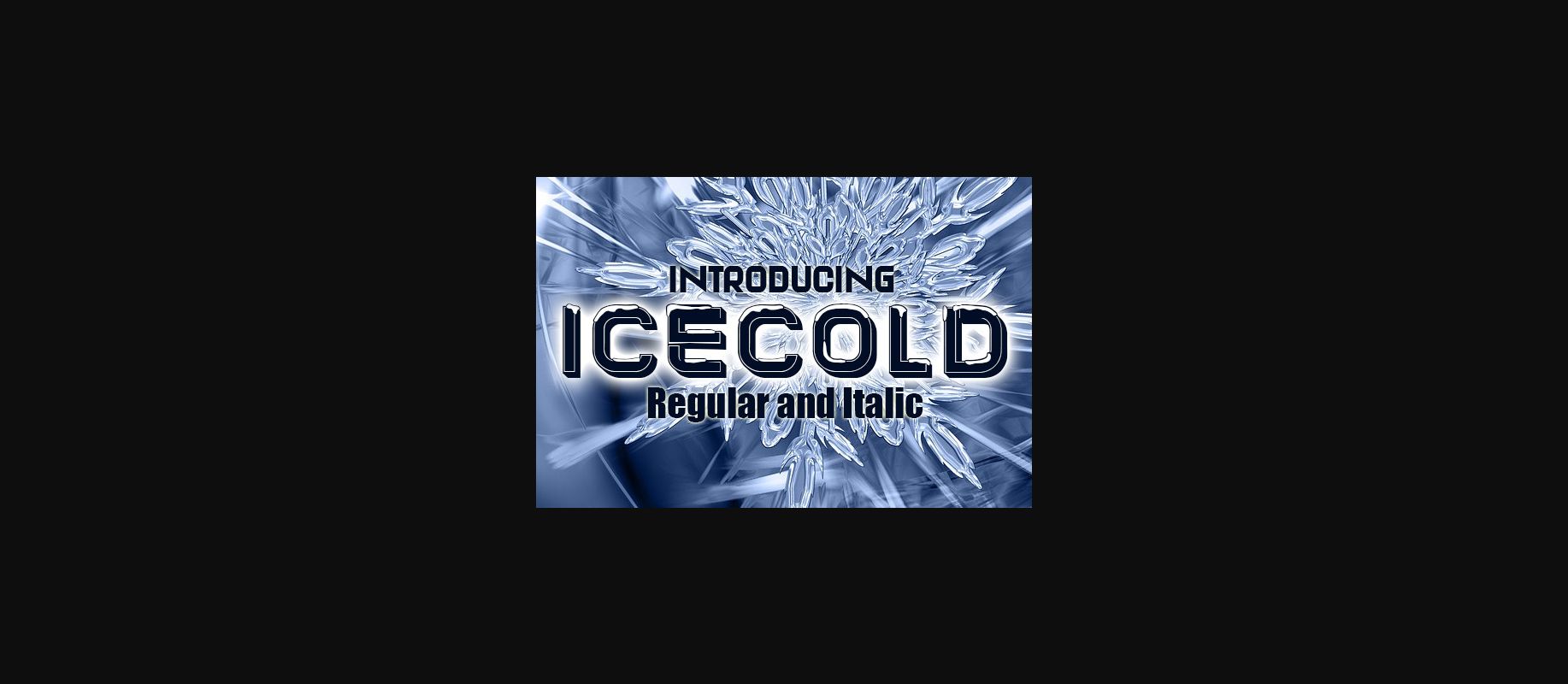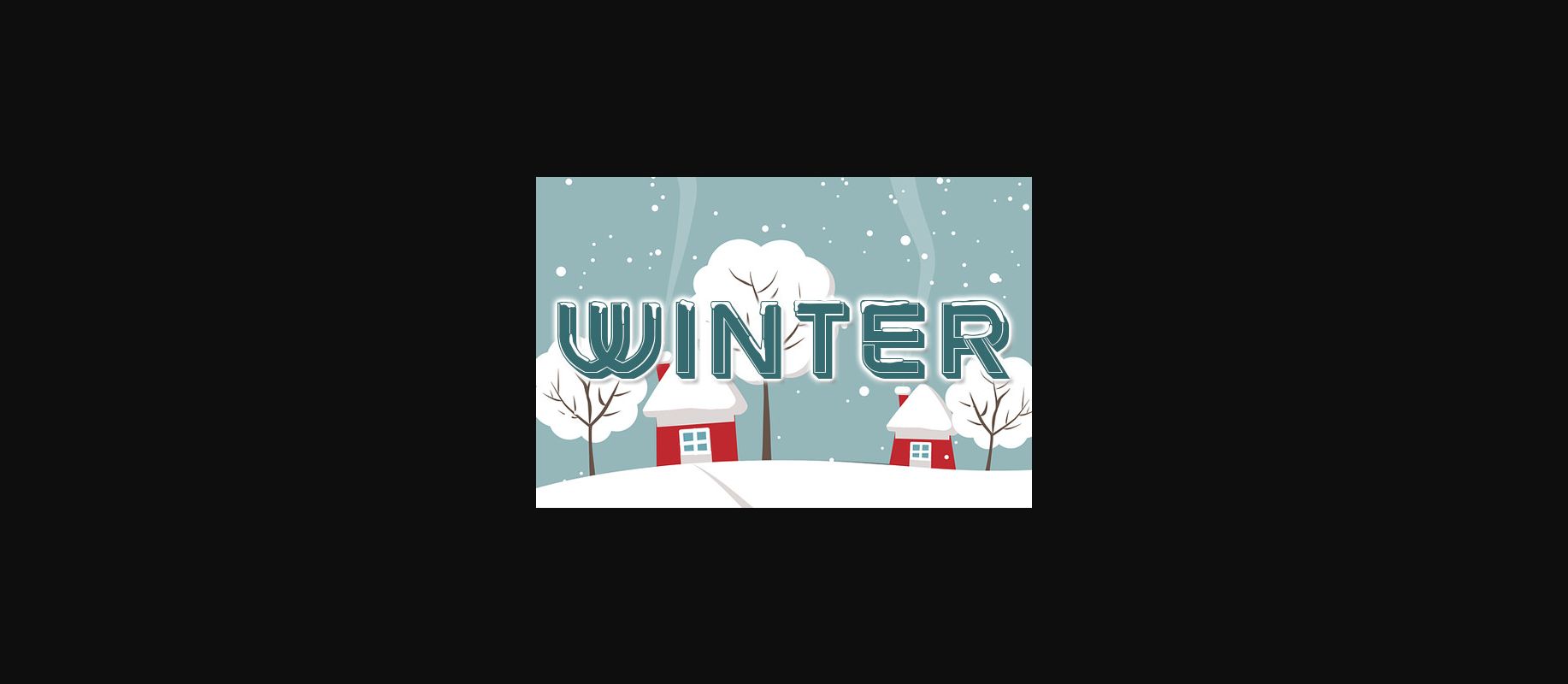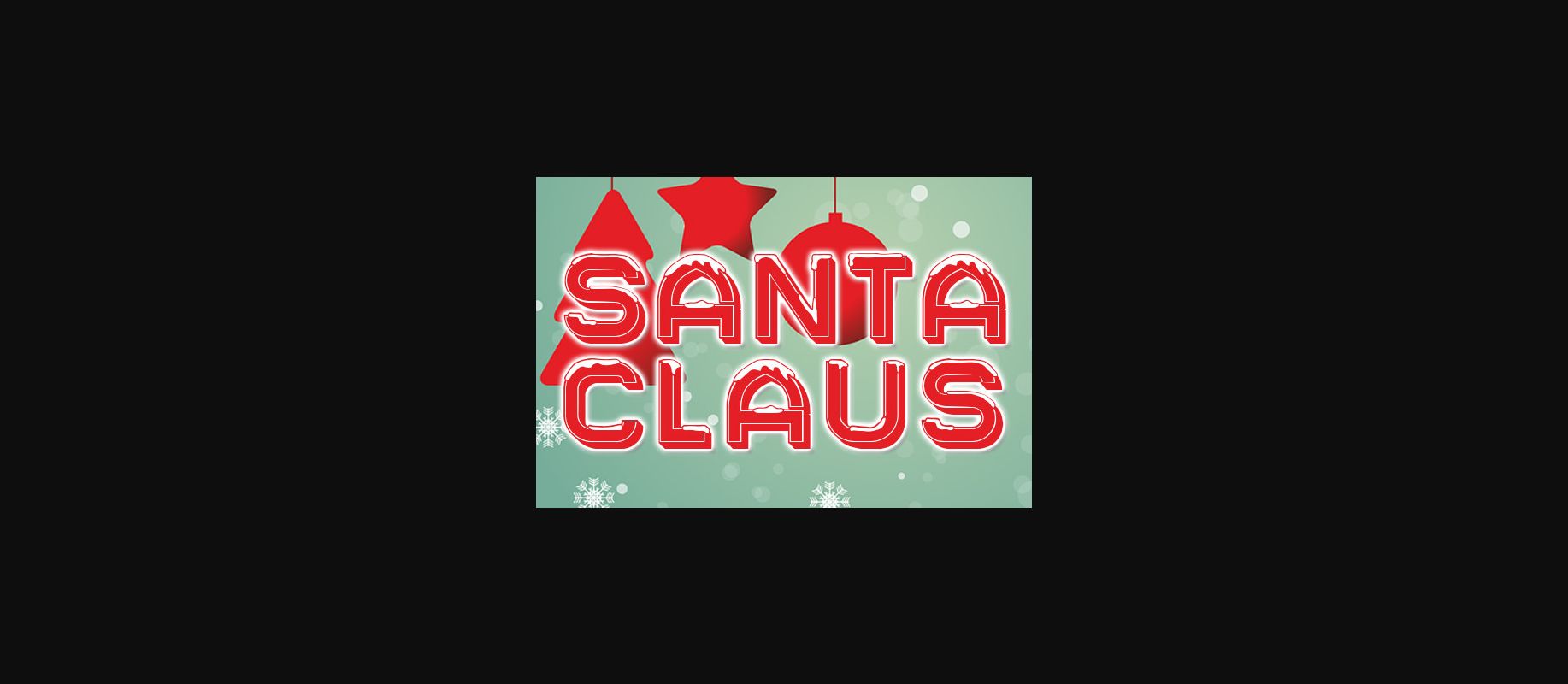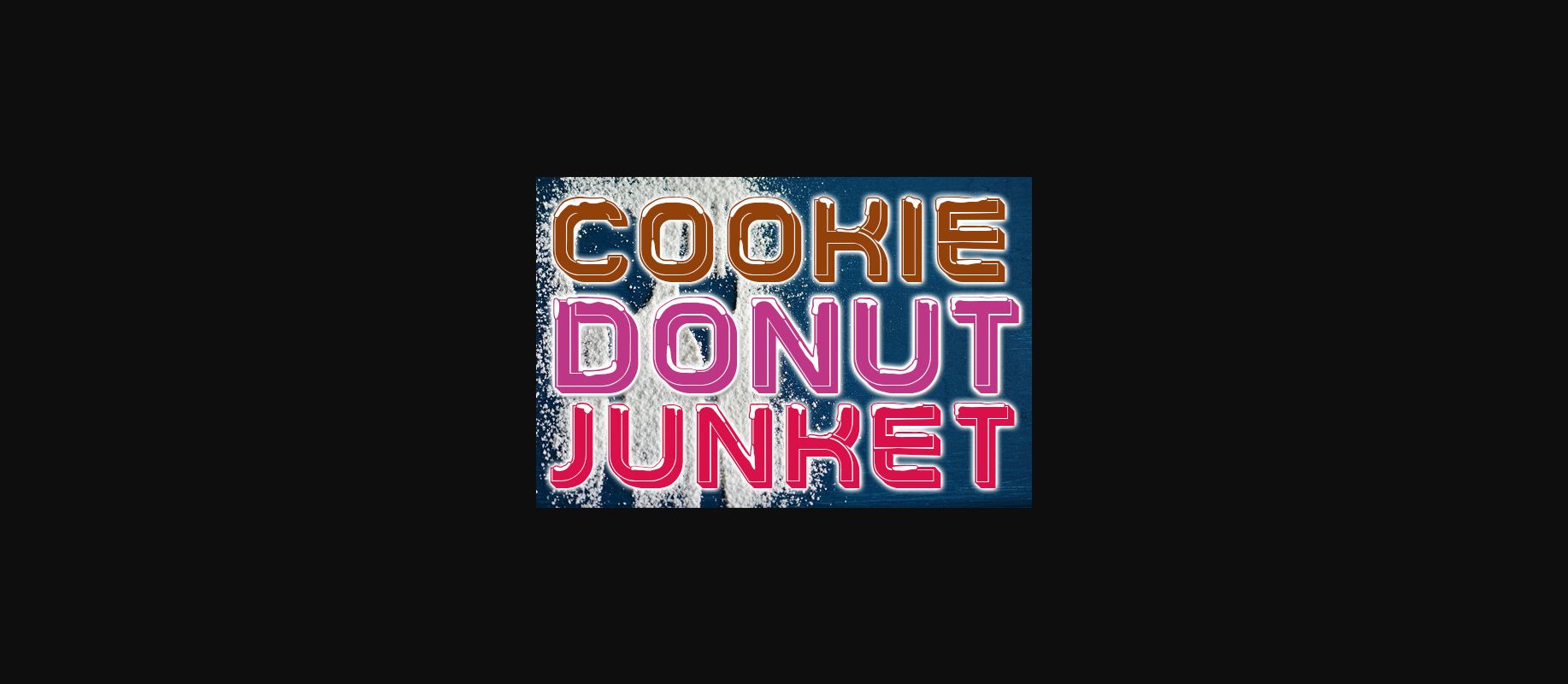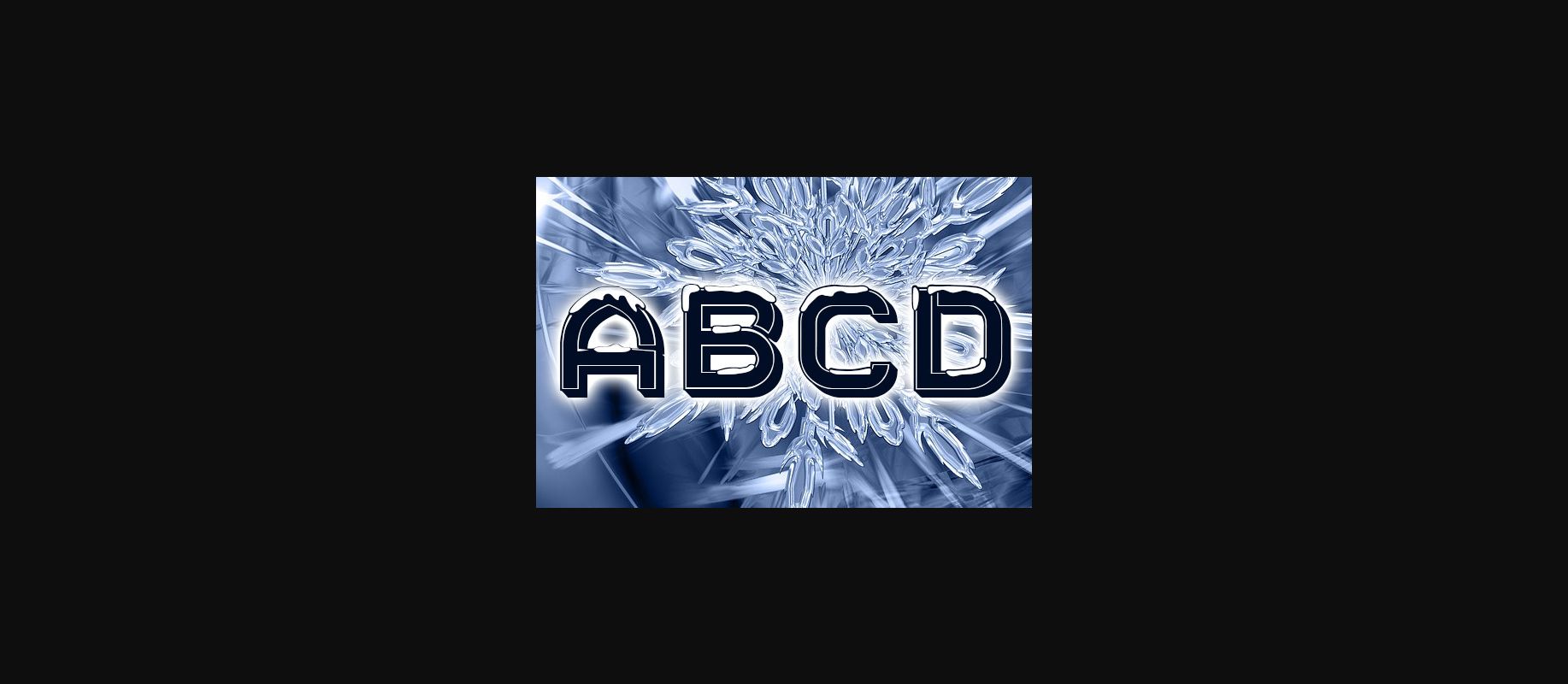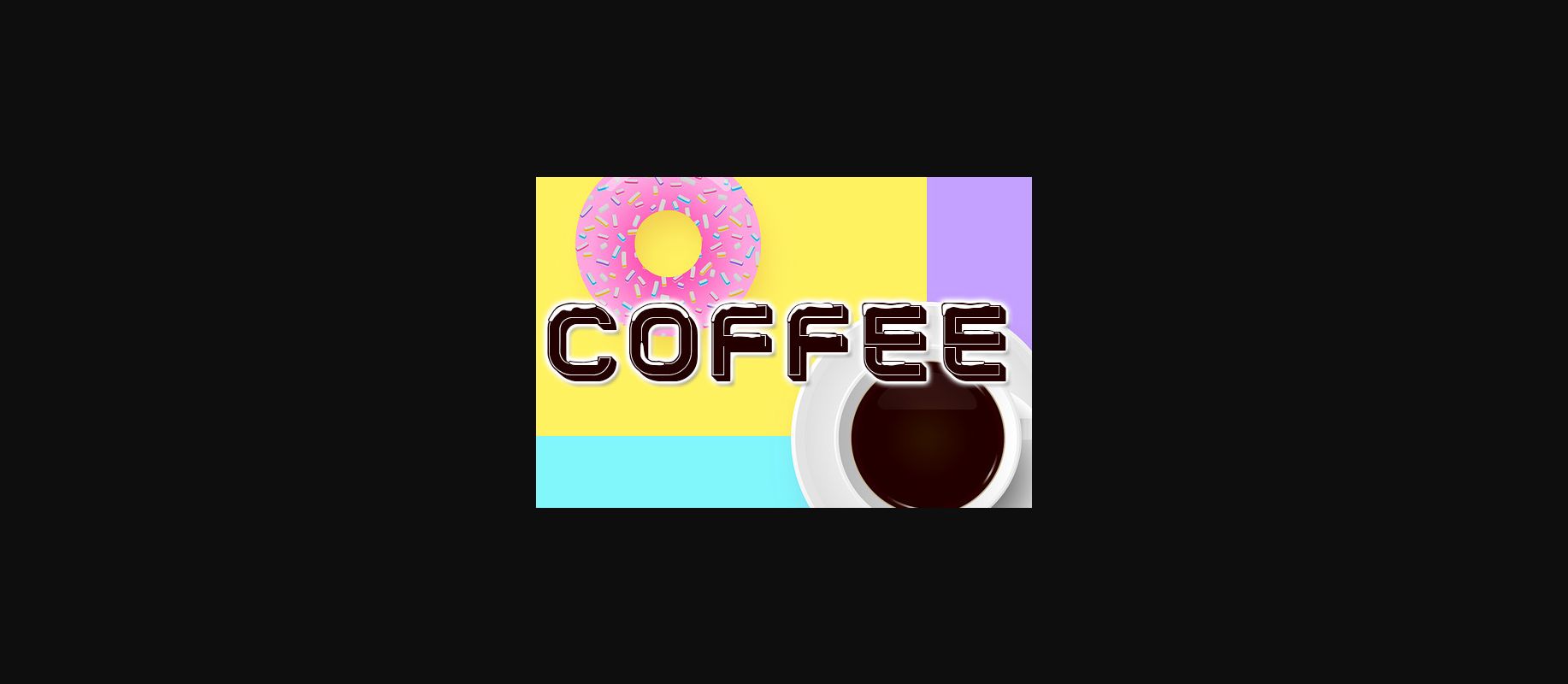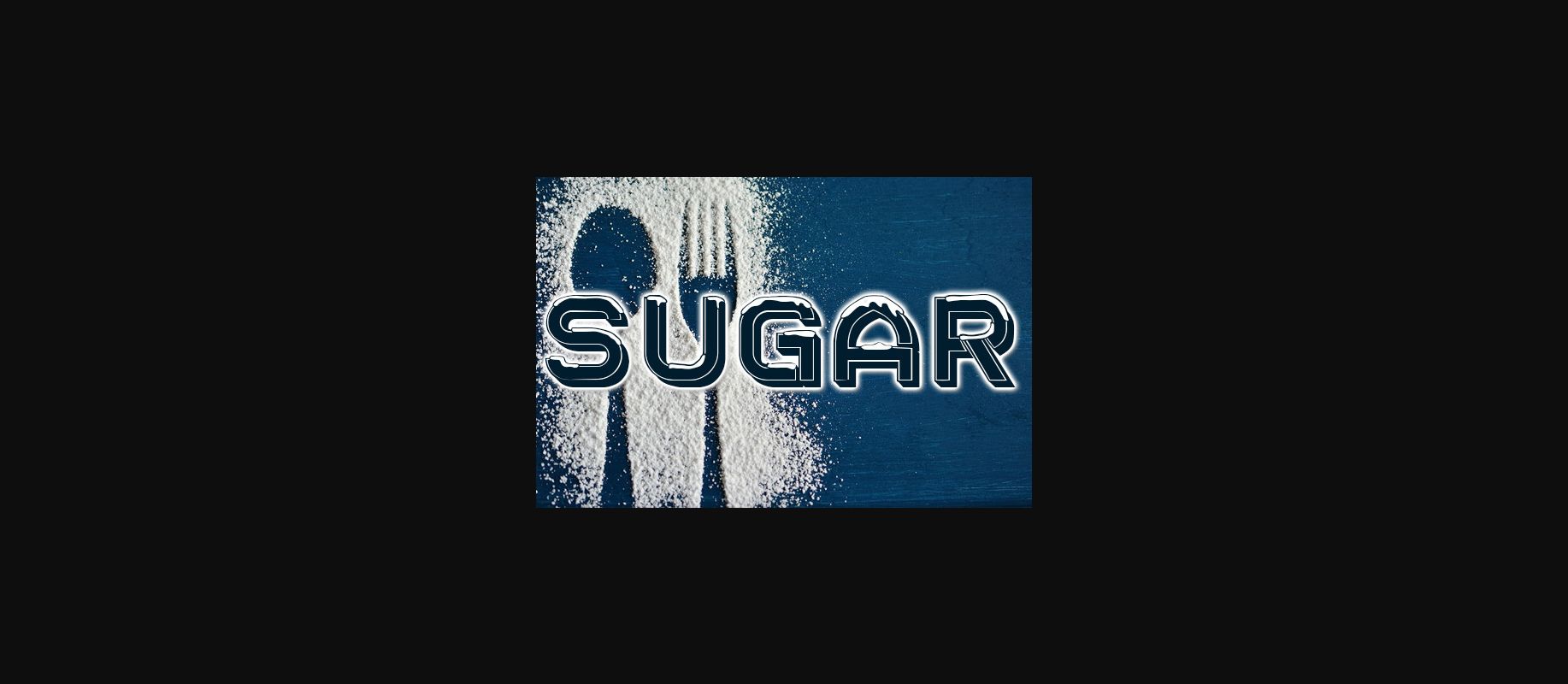
Icecold is a delicious decorative font that will fit any of your design needs. The characters look bold and icy, perfect for wintery creative projects.